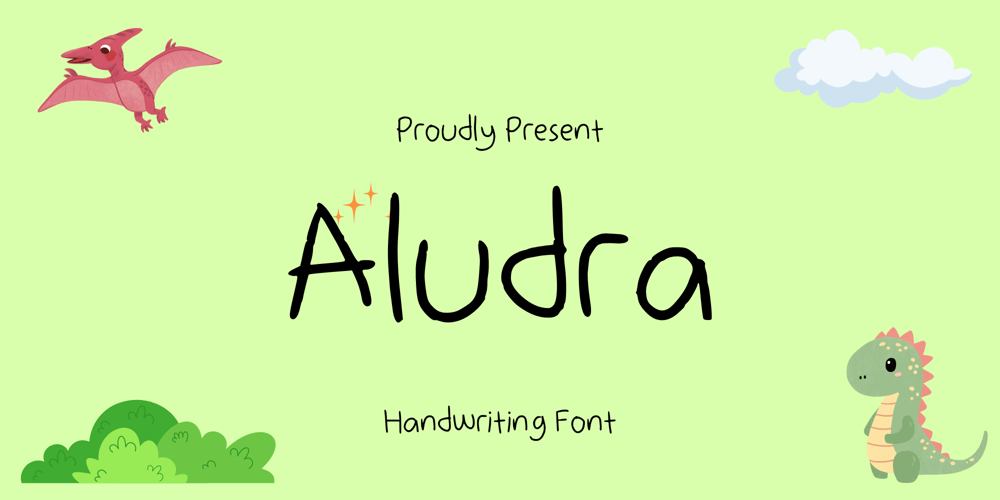
Aludra Font Family was designed by published by Sidkia Fonts. Aludra contains 1 styles and family package options. Aludra is a sweet and cursive handwritten font. This gentle font will look gorgeous on a variety of design ideas. It will add a joyful and romantic touch to each of your projects!